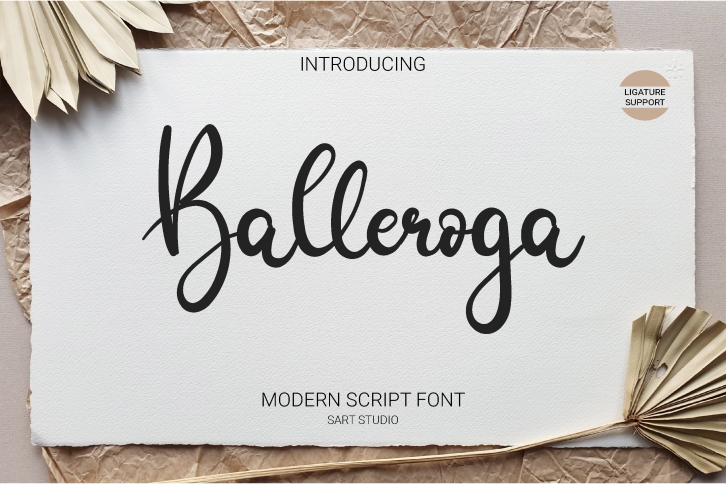
Balleroga Modern Script Font Download
Balleroga Modern Script is a gorgeous font that was realeased on September 22, 2020. The font can be used in many style contexts and design environments. Perfect for invitations, magazines, websites, logos, and more! It was designed by Sartstudioofficial and the file size is 13.5 MB. Thanks for checking out this font!